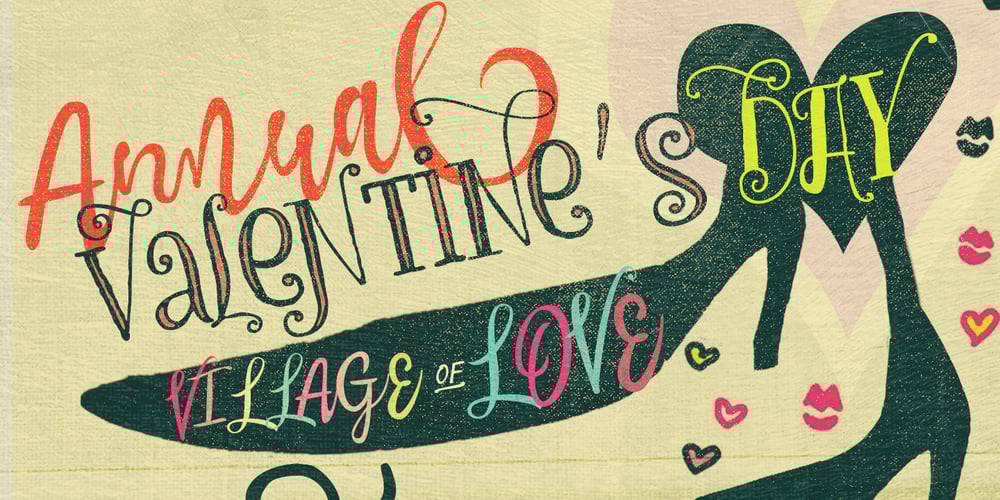
Bechamel Roman Font Family was designed by Carlos Fabián Camargo Guerrero and published by Andinistas. Bechamel Roman contains 4 styles and family package options. BECHAMEL ROMAN was born interpreting unicase letterings of the movie “Willy Wonka and the chocolate factory”. Later these ideas matured with flexible tip nib and paper mixing their naive proportions with some classic ingredients of Baskerville, Bodoni, Didot, Round Hand Script, Graffiti and labels found in Venezuela and Colombia. BECHAMEL ROMAN designed to be combined with Bechamel. BECHAMEL Script, Vein, Words & Ornaments were hand drawn to design words and phrases in logos, packaging, posters, envelopes and greeting cards. BECHAMEL ROMAN 1,2,3 & 4 is an experimental font family designed by #carlosfabiancg. It includes an irregular look to communicate craftsmanship. Its multiple upper cases with condensed width and naive lines are notable for their expressive drawing with a high amount of contrast between thick and thin strokes.